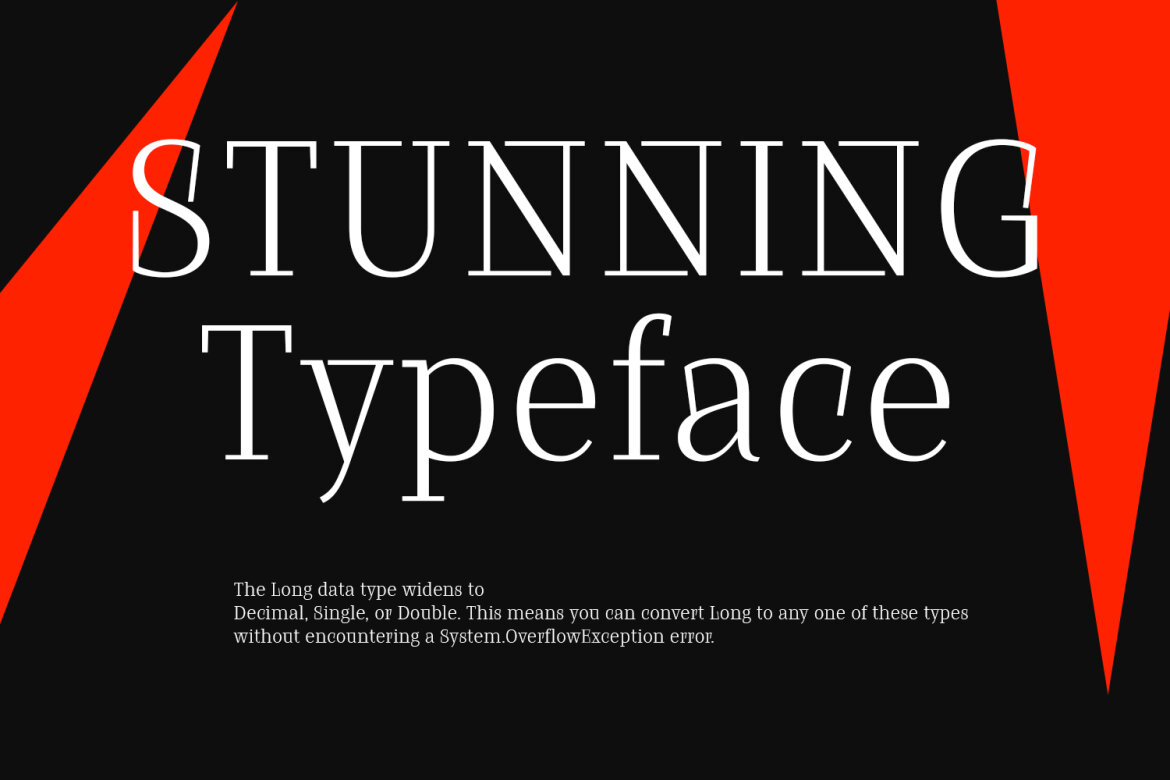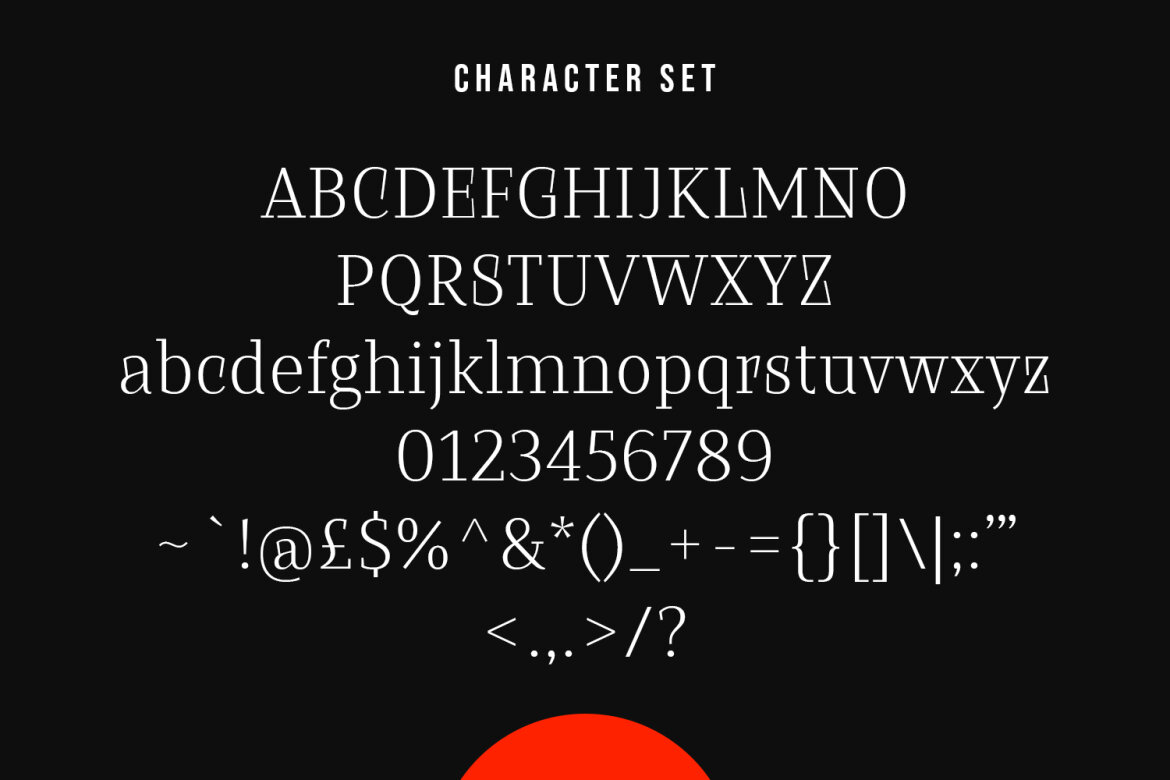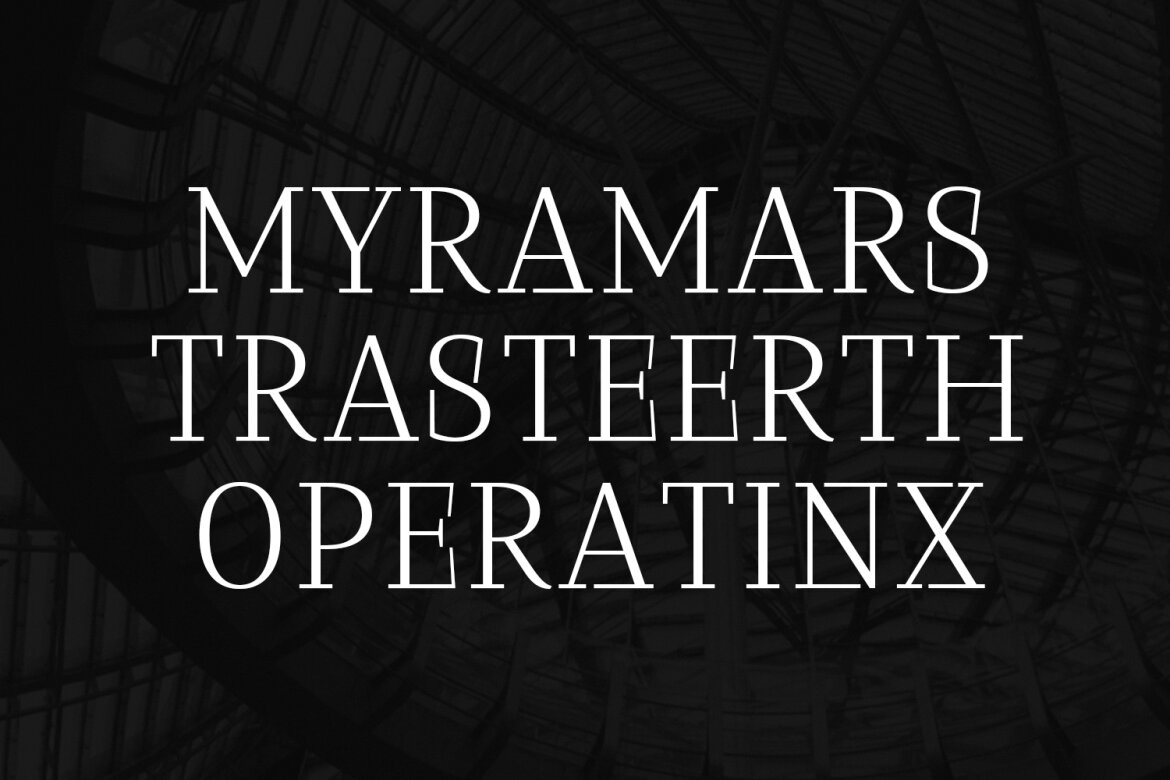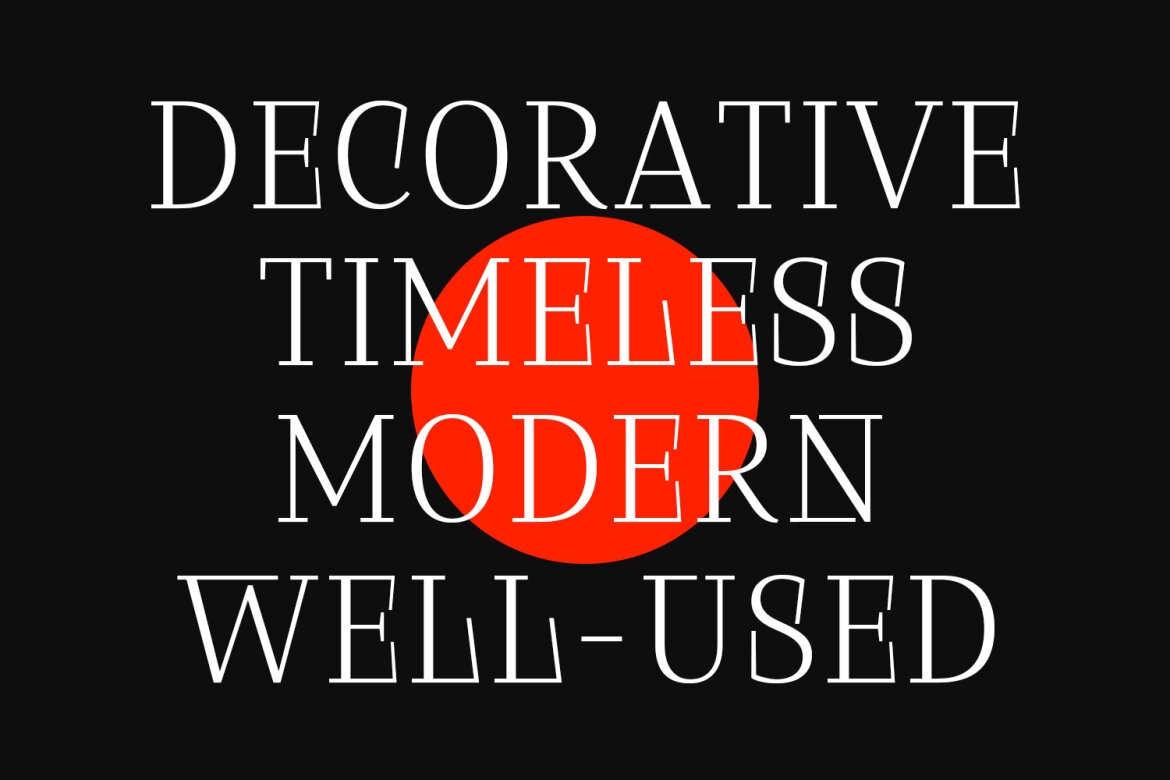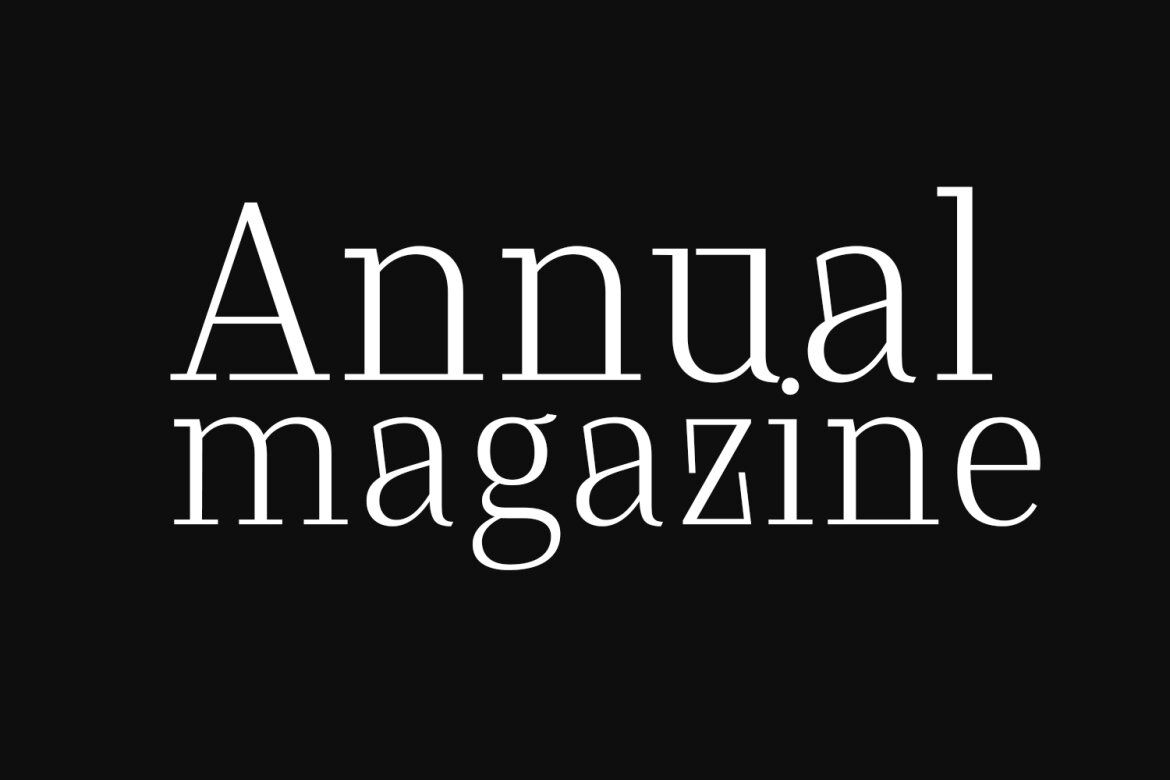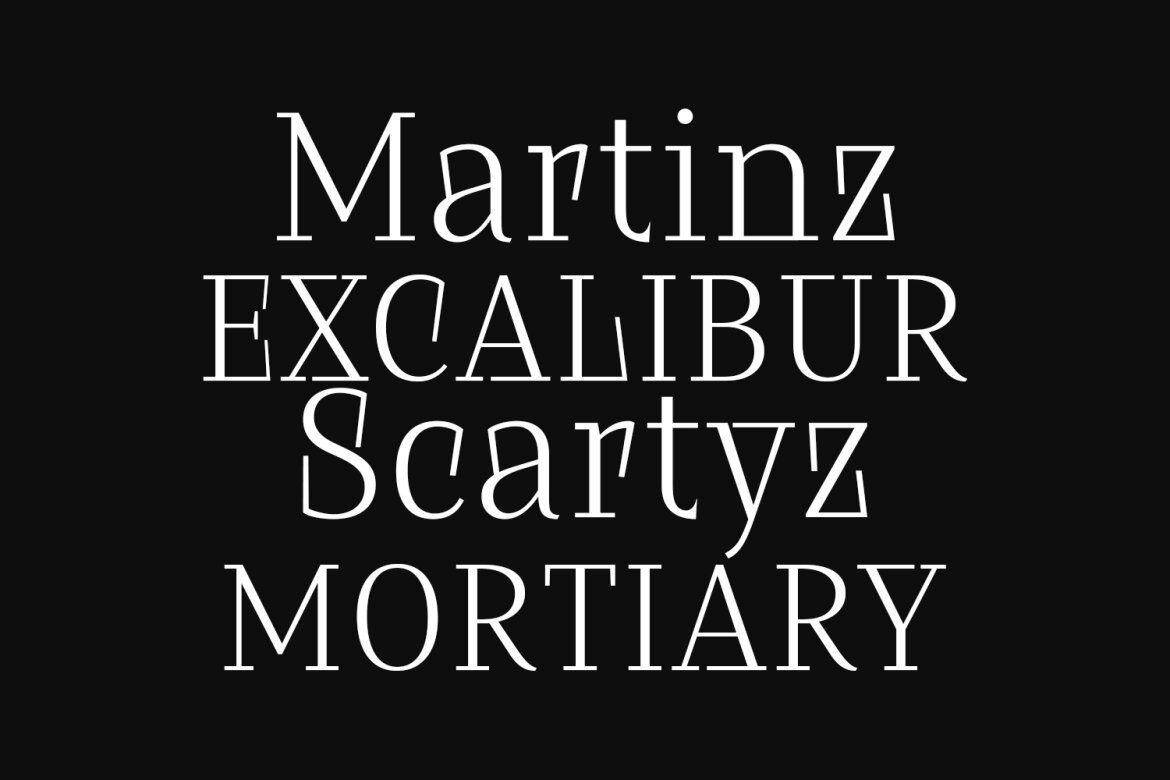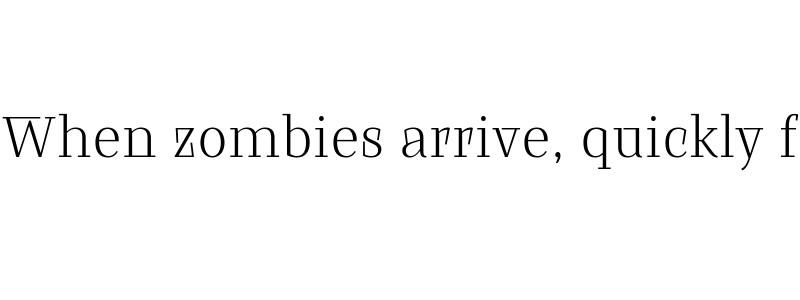
Sarscy FREE Serif Font
Sarscy is a decorative serif font. Regular stroke, fun character with a bit of ligatures and alternates. To give you an extra creative work. Sarscy font support multilingual more than 100+ language. This font is good for logo design, Social media, Movie Titles, Books Titles, a short text even a long text letter and good for your secondary text font with script or serif. Make a stunning work with Sarscy font.